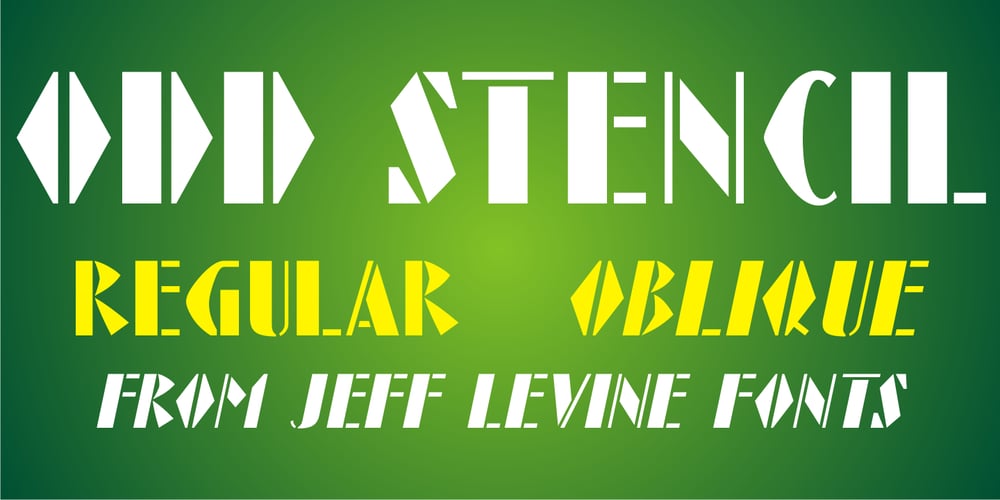
Odd Stencil JNL
Odd Stencil JNL font
Odd Stencil JNL Font Family was designed by Jeff Levine and published by Jeff Levine. Odd Stencil JNL contains 2 styles and family package options. The sheet music for “Dancing Butterfly” had the title of the 1929 composition hand lettered in what can be only described as an odd hybrid of letters with an Art Nouveau stencil influence. This quirky style became the basis for Odd Stencil JNL, which is available in both regular and oblique versions.